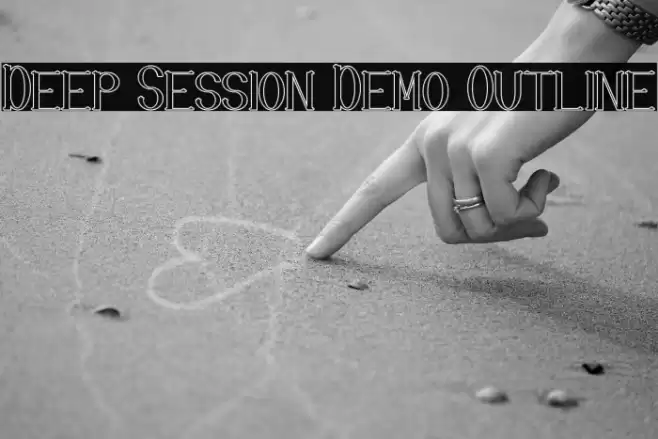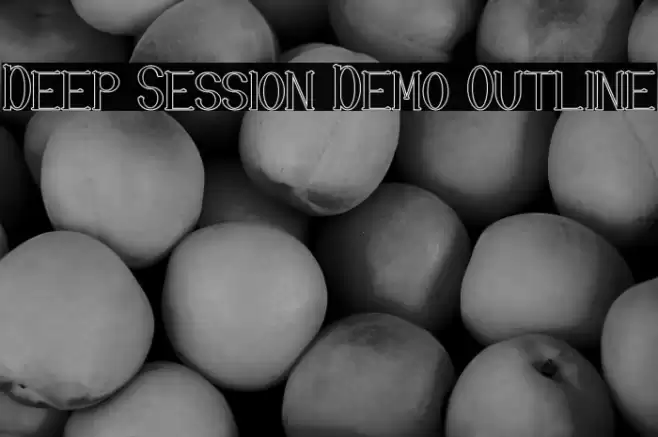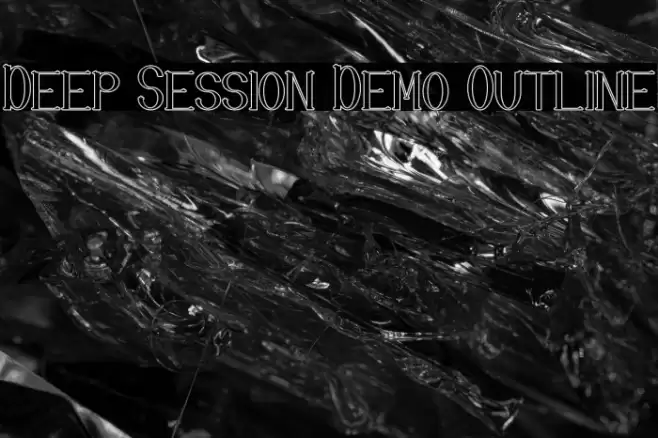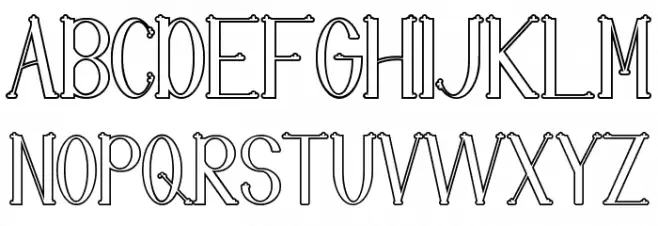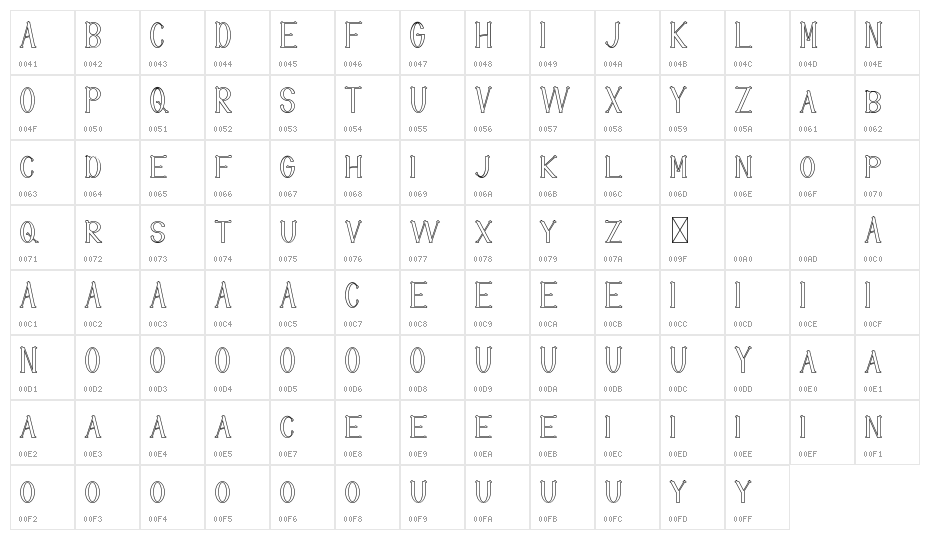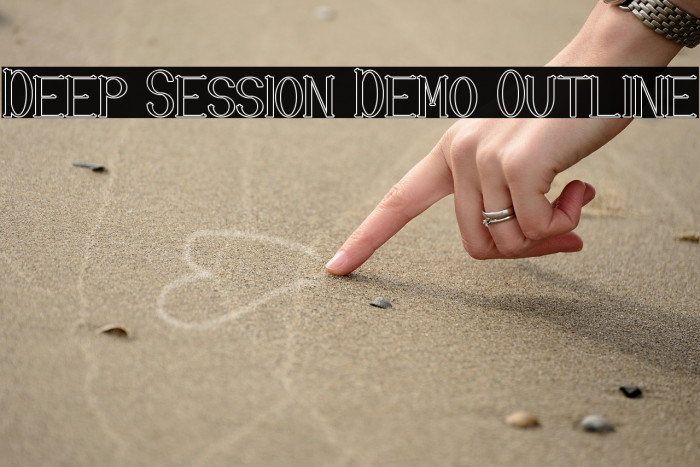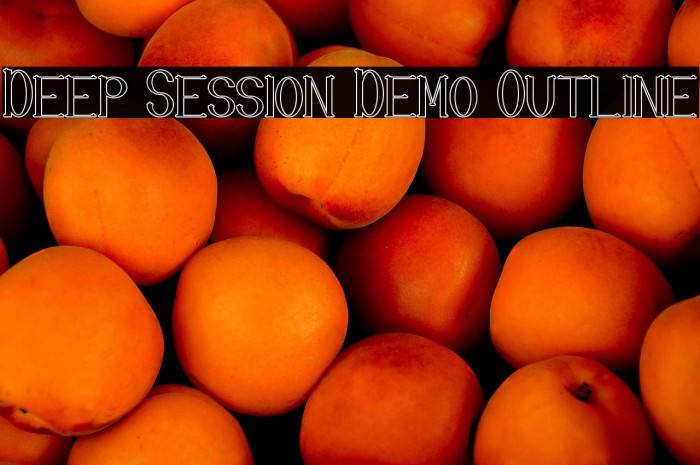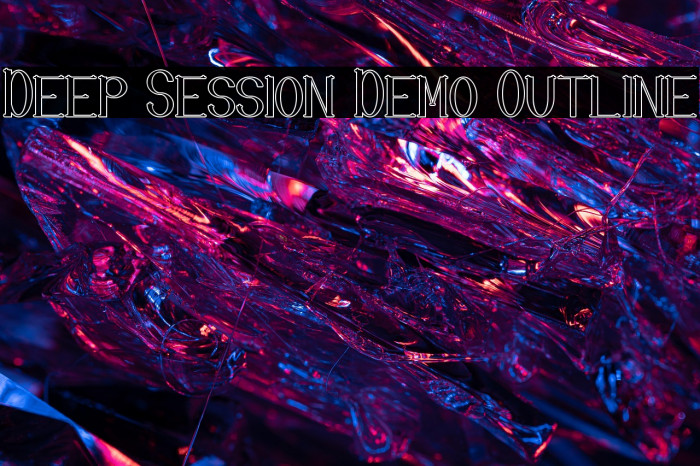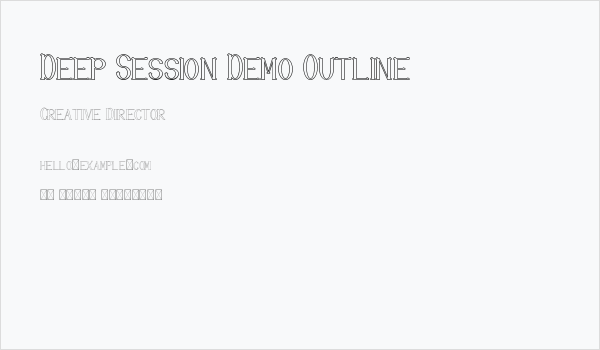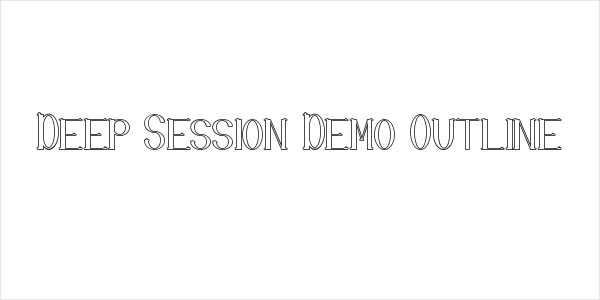
Deep Session Demo Outline Font
Deep Session Demo Outline Description
This font features a unique outline style with a playful and decorative appearance. Each character is designed with a consistent stroke width, creating a uniform and balanced look. The letters are outlined with a thin line, giving them a hollow appearance that adds a touch of elegance and sophistication. The font maintains a geometric structure, with straight lines and sharp angles that contribute to its modern aesthetic. The spacing between characters is even, ensuring readability while maintaining its decorative charm. This font is ideal for creative projects that require a distinctive and eye-catching typeface.
A decorative outline font with a modern and playful aesthetic from Regular fonts.